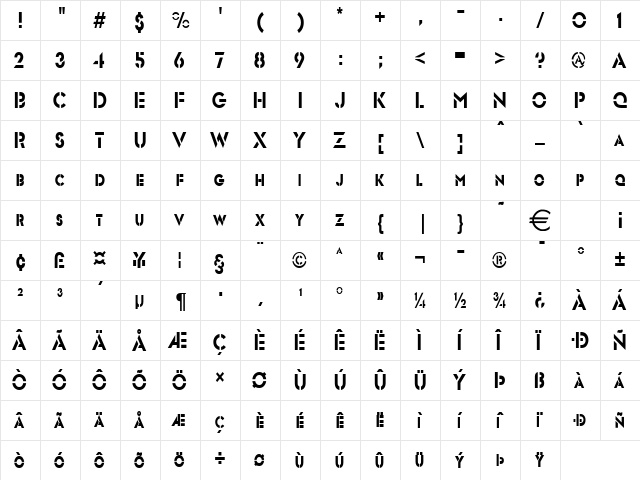
TemplettSCondensed Normal
Design Context for TemplettSCondensed Typeface
TemplettSCondensed takes a measured approach to typography — its balanced proportions and neutral character make it a reliable workhorse for both digital and print work. The condensed width makes it efficient for tight spaces without sacrificing legibility.